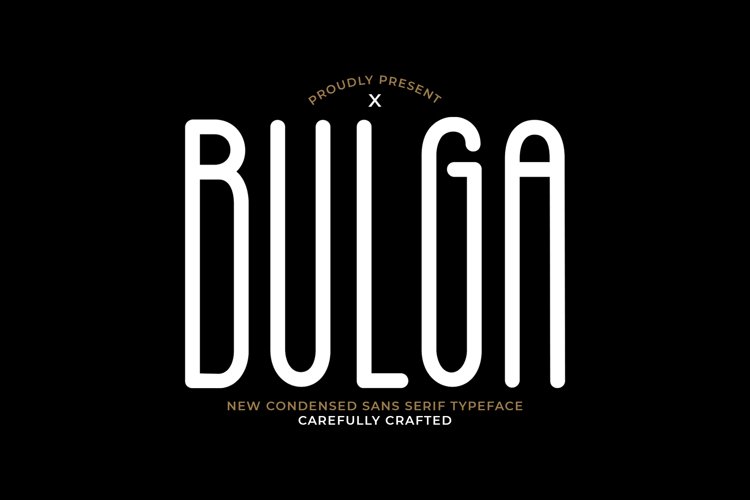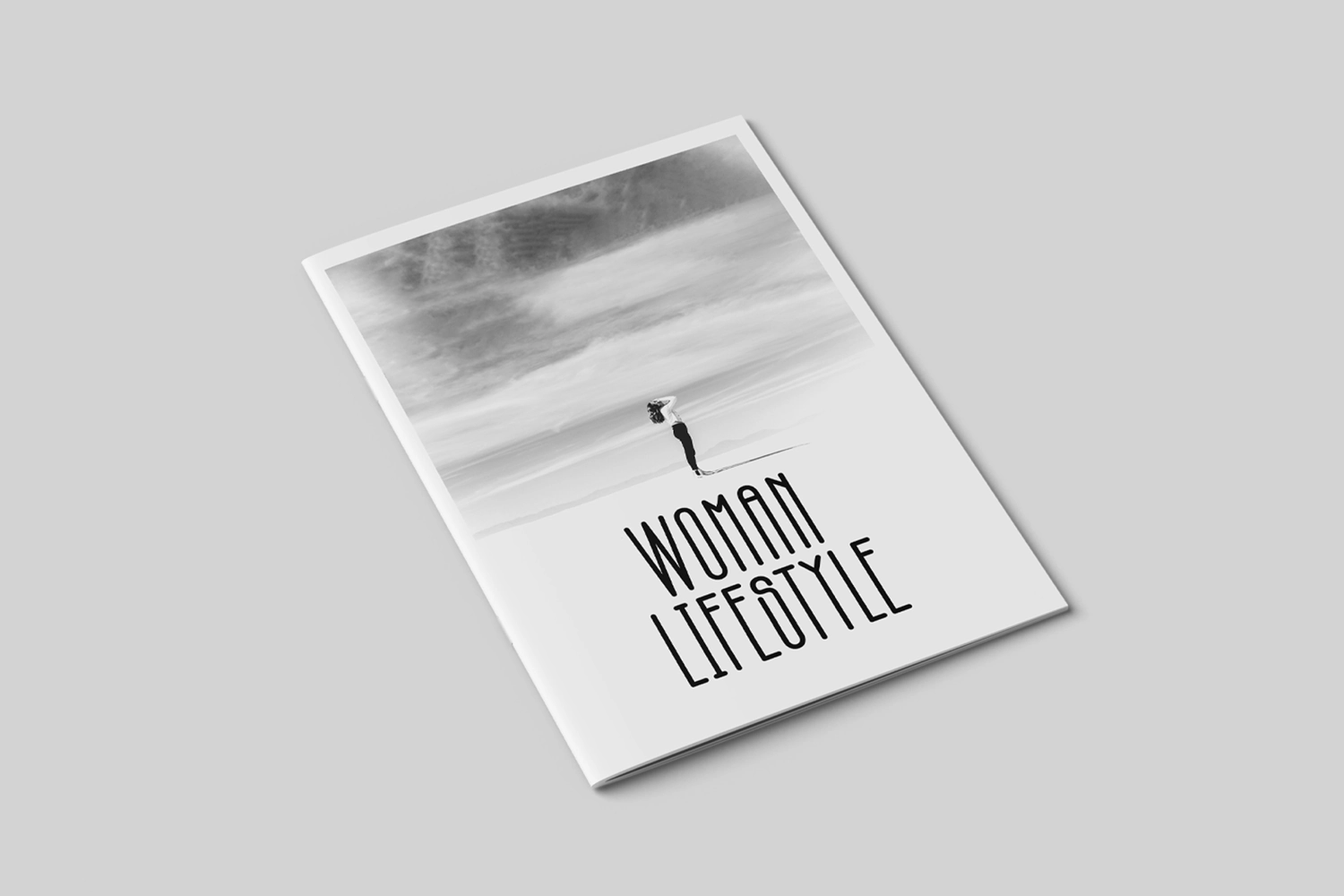
Bulga is a new condensed sans serif typeface. Perfect for display, poster, quotes, film, craft needs, book cover, business card, packaging, merchandise, branding, logo, logotype, header, title, and many more.